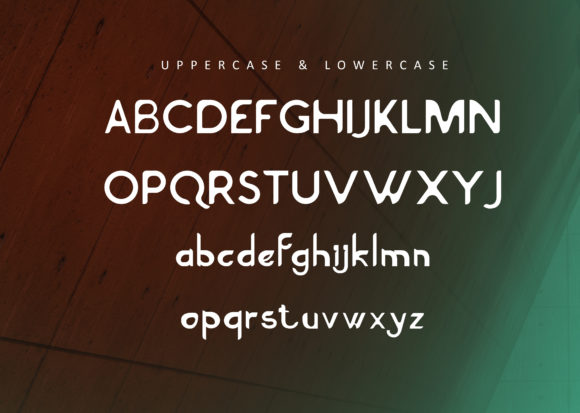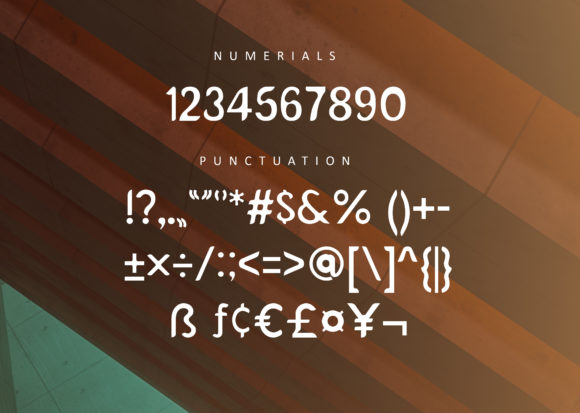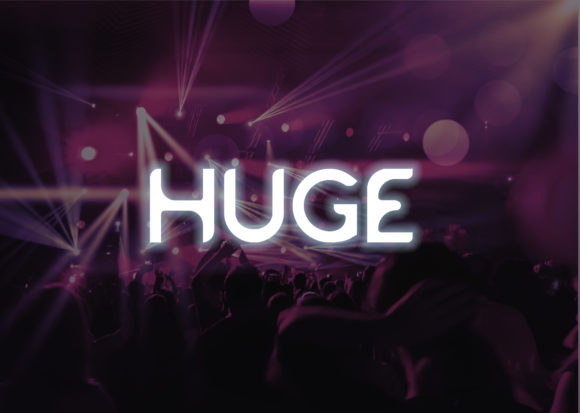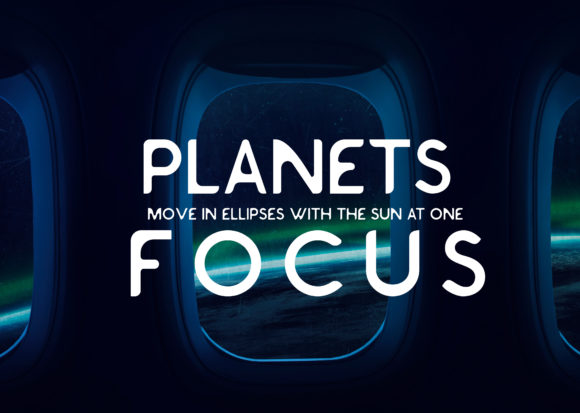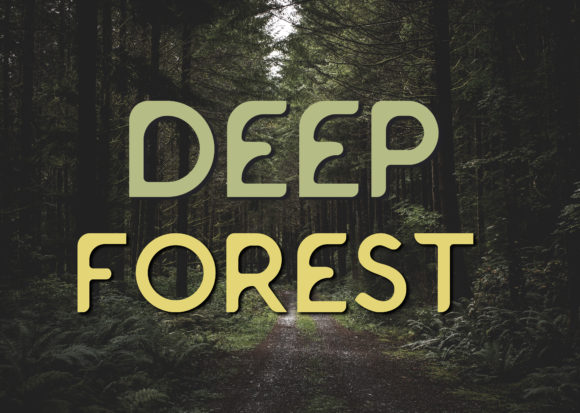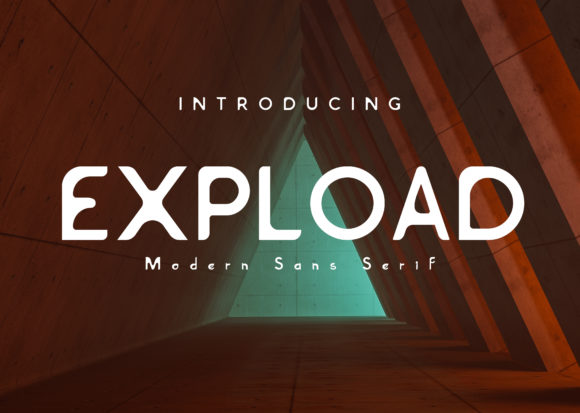
Introducing Expload Font: Elevate Your Designs with a Cool and Vintage Flair
Are you on the hunt for a font that adds a touch of nostalgia and coolness to your designs? Look no further than Expload Font! This vintage-styled display font is perfect for designers and crafters looking to make their creative projects stand out from the crowd. With its unique blend of classic and modern elements, Expload Font is sure to become a staple in your design toolkit.
The Characteristics of Expload Font
Expload Font boasts a distinctive vintage style that’s reminiscent of classic posters, logos, and advertisements from the past. Its cool and edgy vibe makes it perfect for designs that require a bit of attitude and personality. Here are some key characteristics that set Expload Font apart:
- Unique lettering style: Expload Font features a one-of-a-kind lettering style that’s both elegant and playful.
- Vintage flair: The font’s vintage-inspired design elements evoke a sense of nostalgia and timelessness.
- Display font: Expload Font is specifically designed as a display font, making it perfect for headlines, titles, and other attention-grabbing elements.
- Highly versatile: Despite its unique style, Expload Font can be easily paired with a wide range of other fonts and design elements.
What Projects are Suitable for Expload Font?
Expload Font is incredibly versatile, making it suitable for a wide range of projects and applications. Here are some ideas to get you started:
- Posters and flyers: Add a touch of vintage flair to your posters and flyers with Expload Font.
- Logos and branding: Use Expload Font to create unique and memorable logos that stand out from the competition.
- Social media graphics: Elevate your social media graphics with Expload Font’s cool and edgy vibe.
- Packaging design: Add a touch of personality to your packaging designs with Expload Font.
- Web design: Use Expload Font to create eye-catching headlines and titles for your website.
Tips for Using Expload Font Effectively
To get the most out of Expload Font, here are some tips to keep in mind:
- Use it sparingly: Expload Font is a display font, so use it sparingly to avoid overwhelming your design.
- Pair it with complementary fonts: Pair Expload Font with complementary fonts to create visual interest and hierarchy.
- Experiment with colors and textures: Don’t be afraid to experiment with different colors and textures to add depth and personality to your design.
- Keep it legible: Make sure to adjust the font size and style to ensure that your text remains legible.
Expload Font is a unique and versatile font that’s perfect for designers and crafters looking to add a touch of coolness and vintage flair to their designs. With its highly legible lettering style, vintage-inspired design elements, and display font characteristics, Expload Font is sure to become a staple in your design toolkit. So why wait? Download Expload Font today and start elevating your designs to the next level!